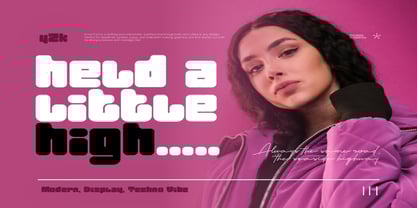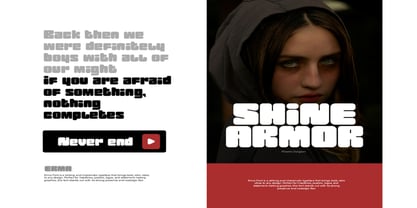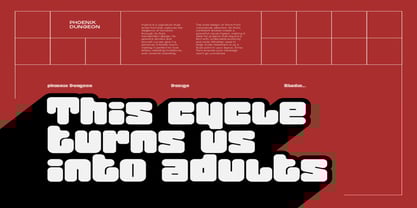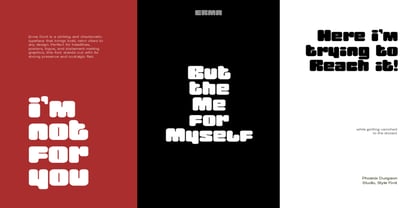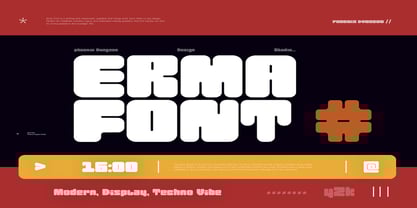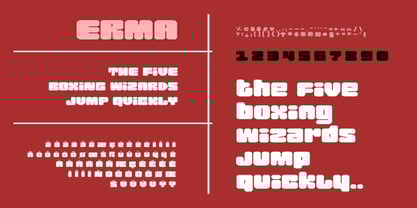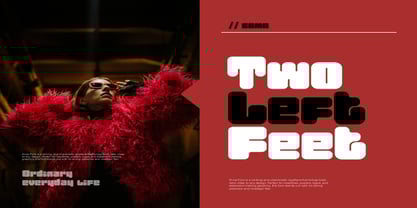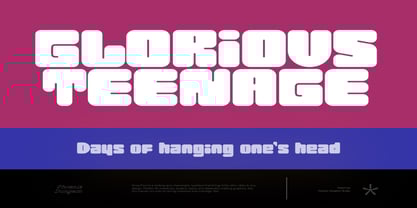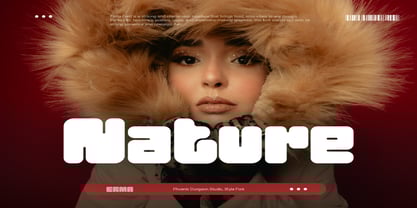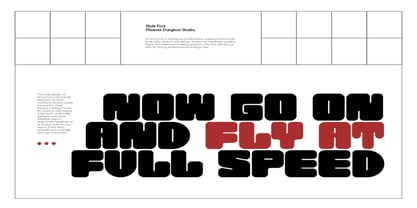
Erma
by Phoenix Group
The Erma Font Family was designed by Alif Naufal Muzakki and published by Phoenix Group. Erma contains 1 styles. More about this family
Erma Font is a striking and charismatic typeface that brings bold, retro vibes to any design. Perfect for headlines, posters, logos, and statement-making graphics, this font stands out with its strong presence and nostalgic flair. The bold design of Erma Font commands attention. Its thick, confident strokes create a powerful visual impact, making it ideal for projects that require a font with undeniable authority and style. Whether used in large-scale headlines or as a focal point in your layout, Erma Font ensures your message won’t go unnoticed.